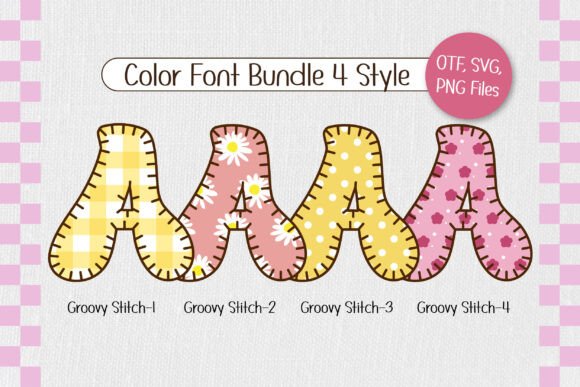
Groovy Stitch Font
Introducing “Groovy Stitch” a playful color font that combines the cozy charm of Blanket Stitch appliqué with adorable fabric patterns in cheerful pink and yellow tones—all wrapped in a bold groovy font style! This font captures the fun and creativity of handmade crafts and comes with 20 matching decorative doodles featuring sewing materials. Perfect for custom DIY craft projects, t-shirt sublimation, merch designs, custom names, and beyond, Groovy Stitch brings a warm, crafty vibe to any design that needs a touch of handmade love and retro flair.